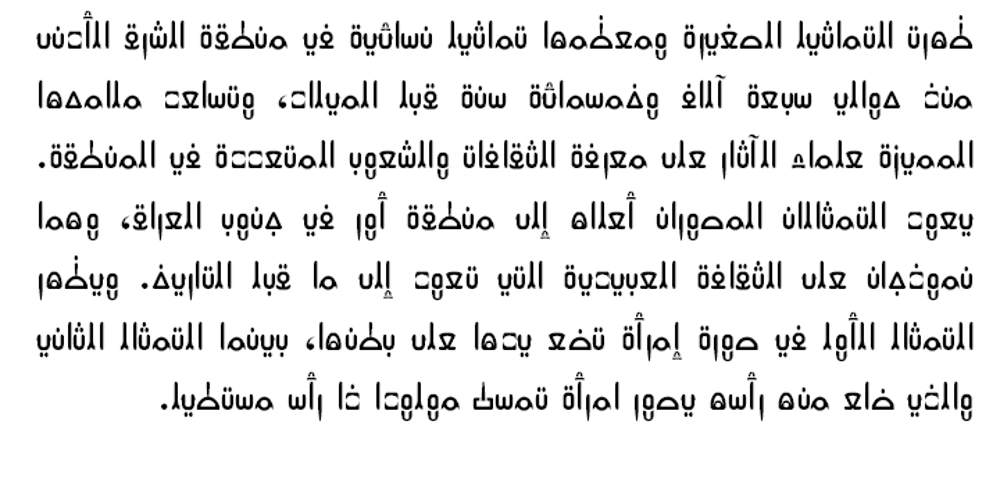
Yasmine Mutlaq Font Family was designed by Saad D. Abulhab and published by Arabetics. Yasmine Mutlaq contains 2 styles and family package options. The Yasmine Mutlaq type family follows the guidelines of the Mutamathil Mutlaq type style. It has one glyph per basic Arabic Unicode character or letter. Each glyph is completely symmetrical around its vertical axis to facilitate bi-directional ordering. This family does not include any required ligatures and does not use glyph substitutions or forming but it does use marks positioning. Text strings composed using types of this family are non-cursive with stand-alone isolated glyphs. Yasmine Mutlaq employs four x-height values, two above and two below the x-axis. Its design uses curves with equally distributed weight. This family includes both Arabic and Arabic-Indic numerals, all required diacritic marks, in addition to all standard English keyboard punctuations and major currency symbols. It is available in regular styles. Also included is an additional font, Yasmine Mutlaq bidi that encodes same glyphs as symbols to facilitate user input from left to right using a Latin keyboard. The fonts in this family support the following scripts: Arabic, Persian, Urdu, Pashtu, Kurdish, Baluchi, Kashmiri, Kazakh, Sindhi, Uyghur, Turkic, and all extended Arabic scripts.